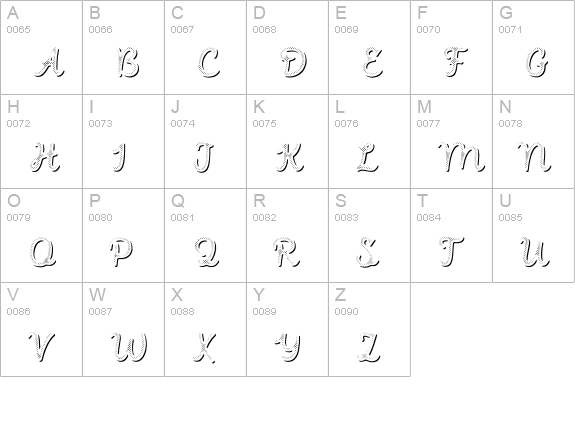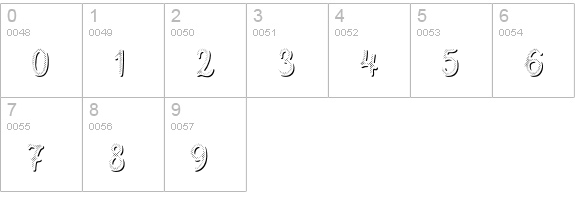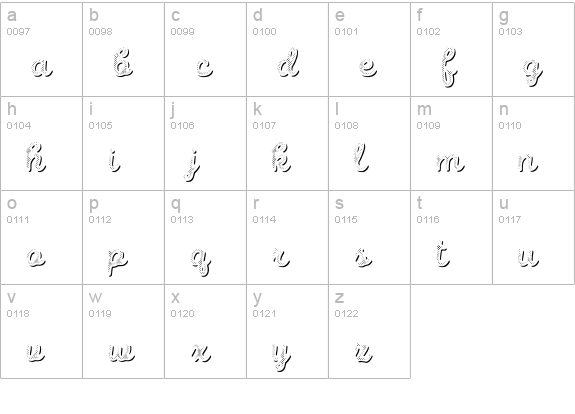
Intro Script B H1 Shade Font Details
Intro Script B H1 Shade font is a modern and stylish typeface that exudes elegance and sophistication. Its intricate details and unique shading make it stand out from the crowd, perfect for adding a touch of luxury to any design project. This font is ideal for creating eye-catching headlines, posters, invitations, and more. Best of all, Intro Script B H1 Shade font is available for free download at FontsMarket.com. Whether you're a professional designer or a hobbyist looking to enhance your creative projects, this font is a valuable addition to your collection. Don't miss out on the opportunity to elevate your designs with this exquisite and versatile typeface. Download Intro Script B H1 Shade font today and unleash your creativity!